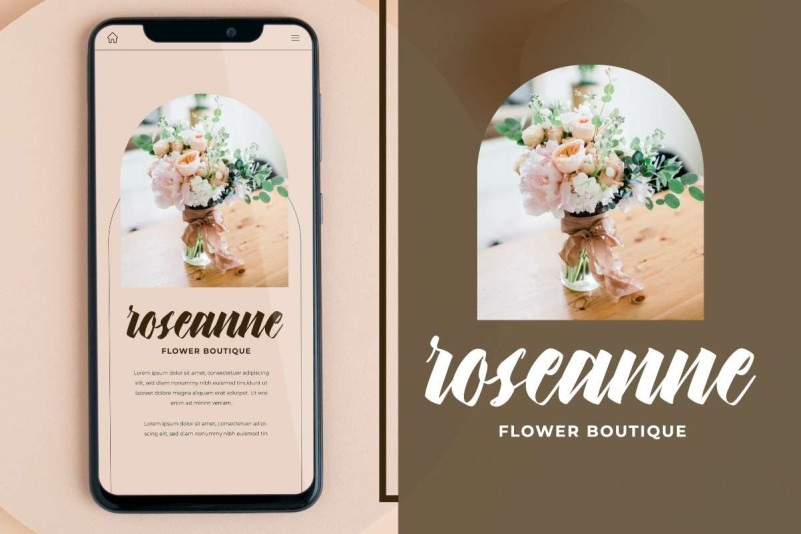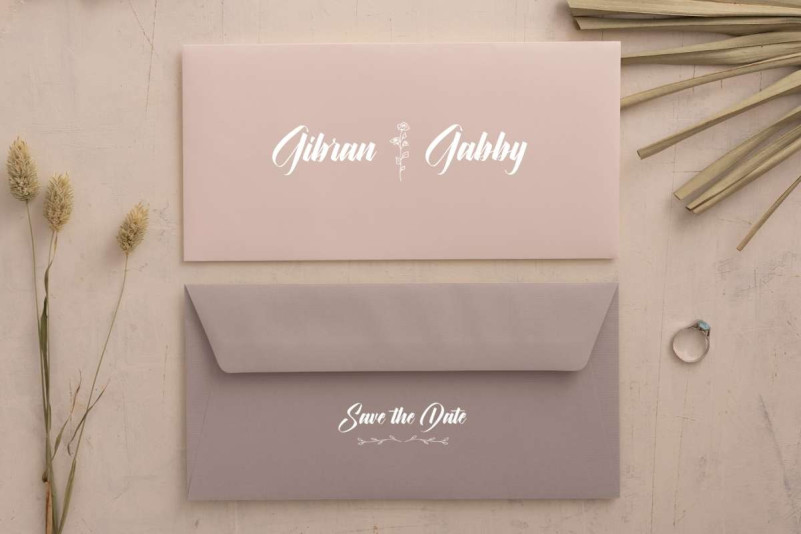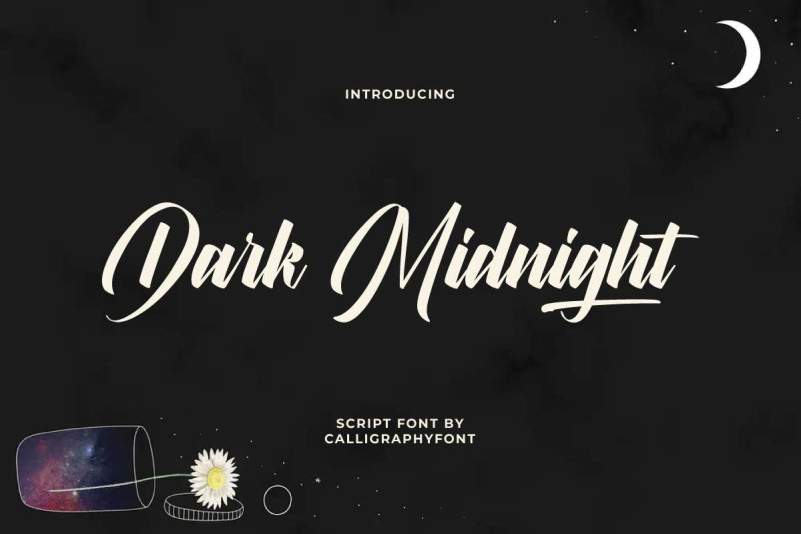
Dark Midnight Font
Dark Midnight Script Font is a great classic calligraphy script font with simple handwriting letters so everyone can easly read. This font will enhance various creative projects, such as apps, brand logo, brochure, cover, invitation, label, magazine catalog, product packaging, quote, screen print, stationery, title, watermark, website, and other projects that require a classy touch.
Dark Midnight Font will be perfect for any industry, such architect, boutique, café, craftsman, florist, jewelry, homeware, printing, publishing, restaurant, salon, wedding, etc. It brings perfection in form and readability, making it a great choice for main text or in combination with other font types.
Dark Midnight Font comes with a full set of Uppercase and Lowercase Basic Characters, Number, a large range of Punctuation and Symbol. This font is also equipped with Ligature and Swoosh characters that will complement and enhance it. Ready to use both on Windows machine or Mac with simple installations. It’s tested to work well in the Adobe Apps (Illustrator, Adobe InDesign, Adobe Photoshop) CorelDraw, and others. It supports multilingual characters. PUA Encode Characters means you can access all the characters easily – Fully accessible without additional design software.